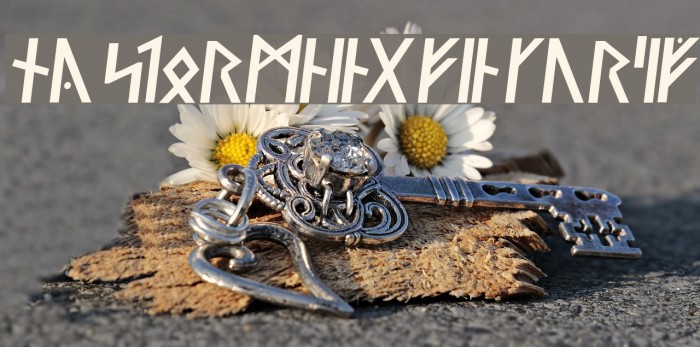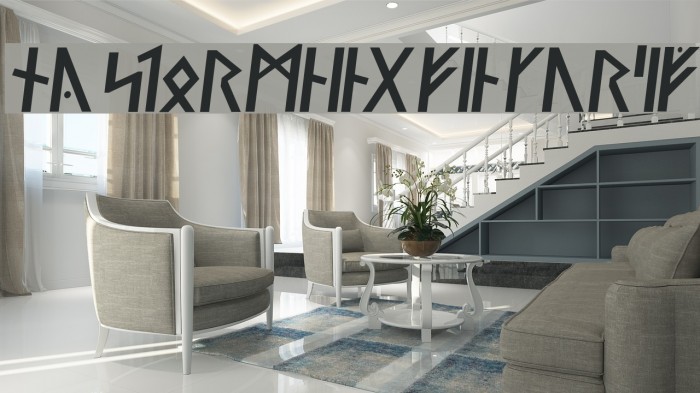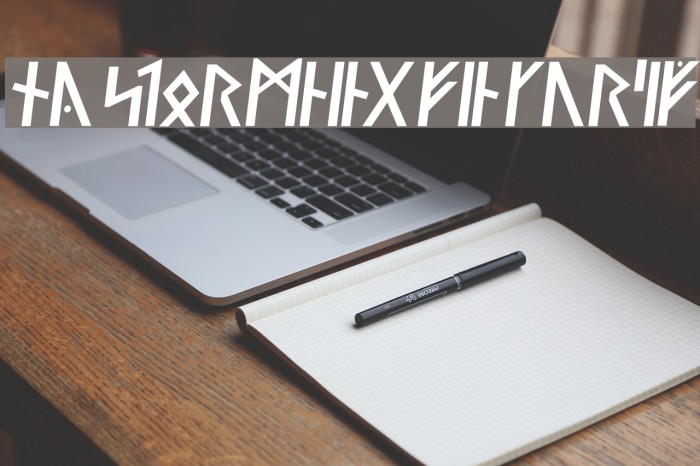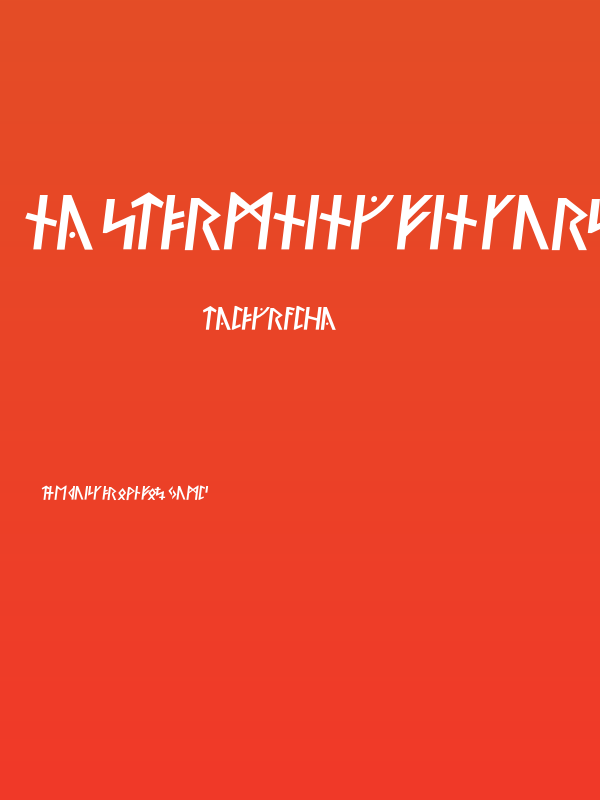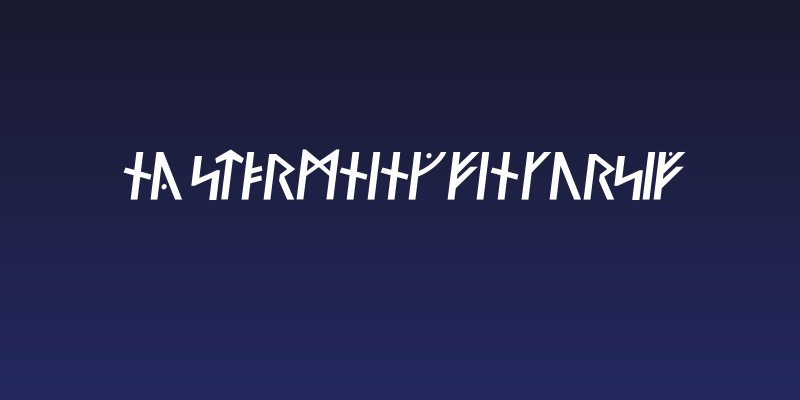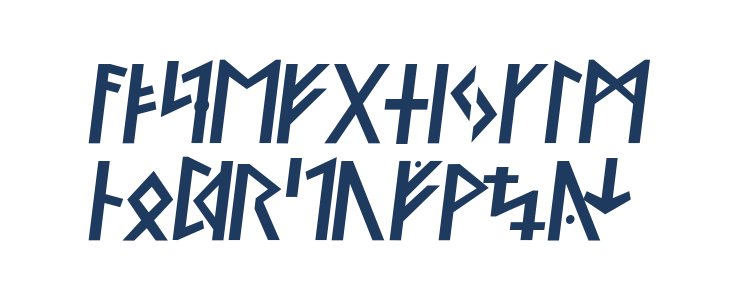
Ny Stormning Fin Kursiv Font
Ny Stormning Fin Kursiv Description
This font features a unique, angular design reminiscent of ancient runic alphabets. Each character is crafted with sharp edges and geometric forms, creating a striking and bold appearance. The uppercase and lowercase letters maintain a consistent style, emphasizing vertical and diagonal lines. The numbers and special characters follow the same angular motif, ensuring a cohesive look across all glyphs. This font's distinct style makes it stand out, offering a modern twist on traditional runic symbols. Its bold and decorative nature is ideal for projects that require a strong visual impact.
| Proposed Projects | Ideal for fantasy-themed designs, video game graphics, book covers, and branding that requires a mystical or ancient aesthetic. |